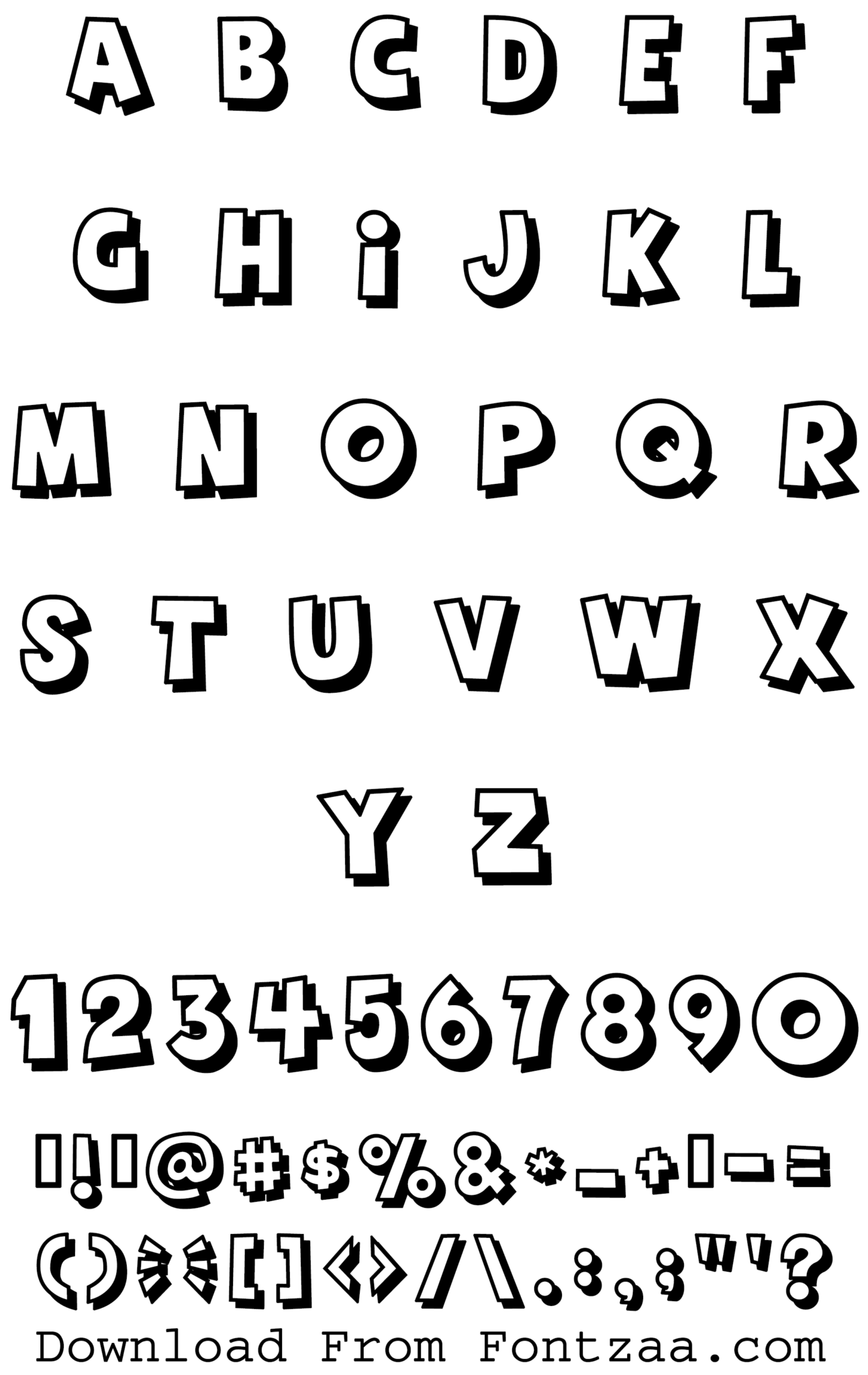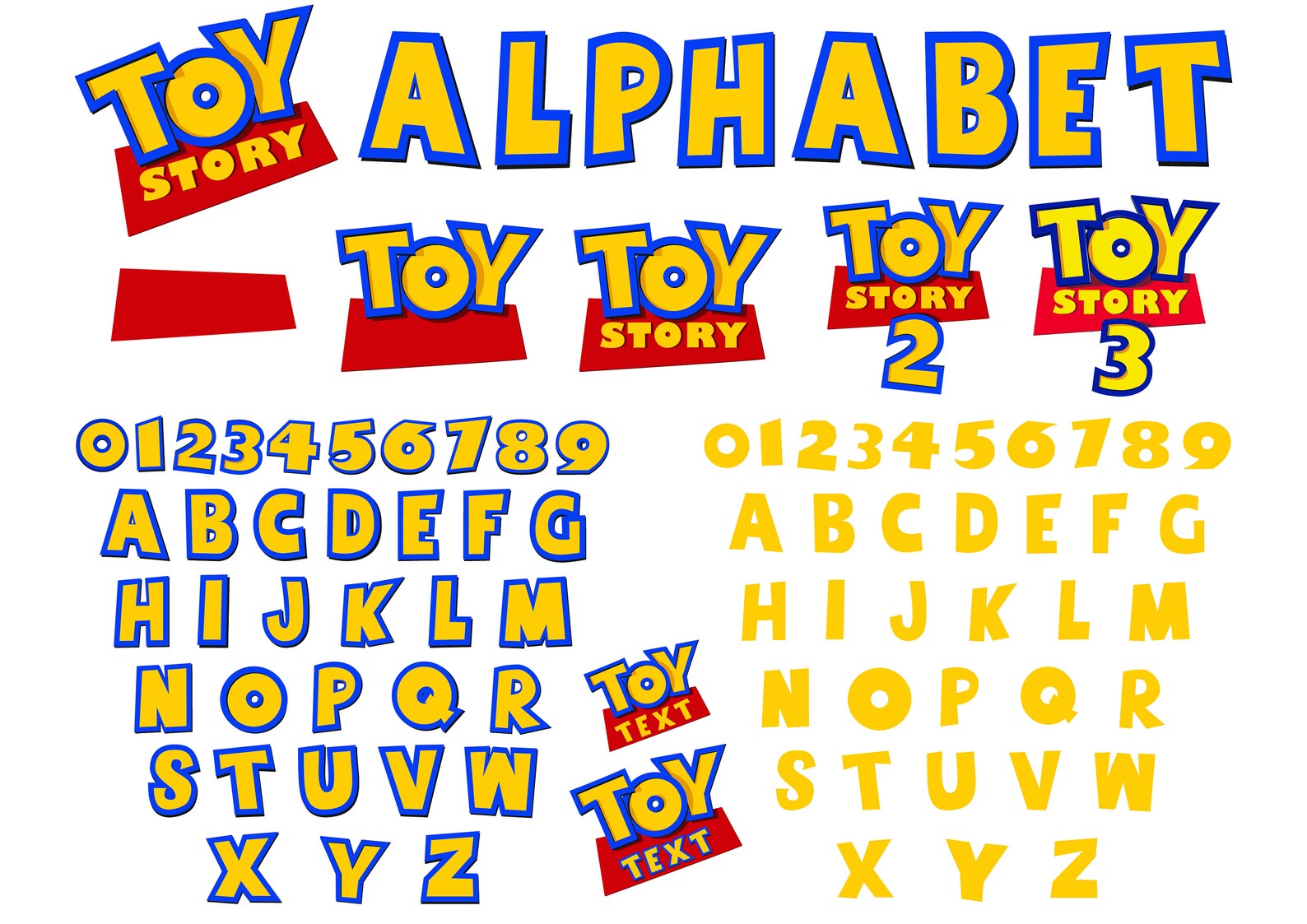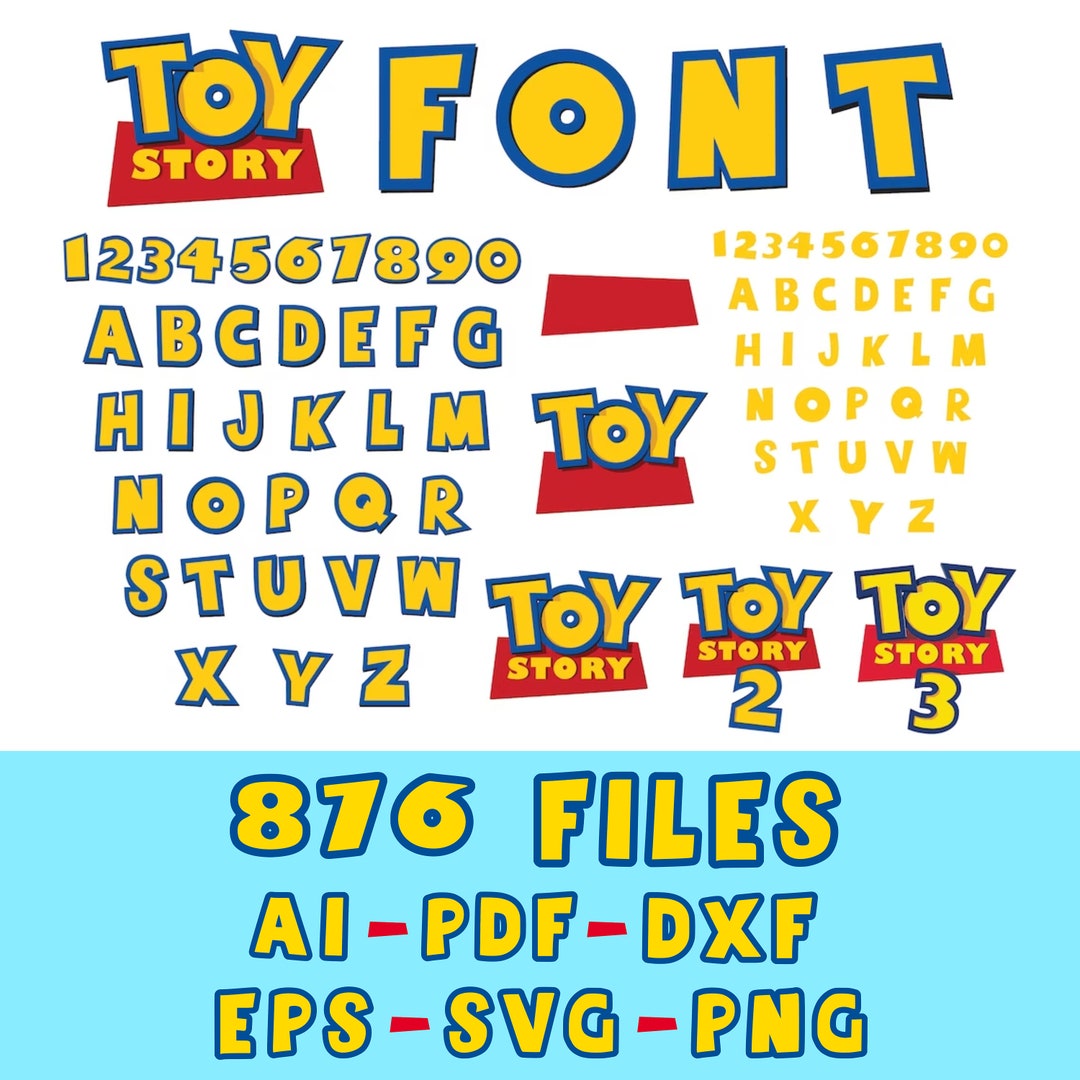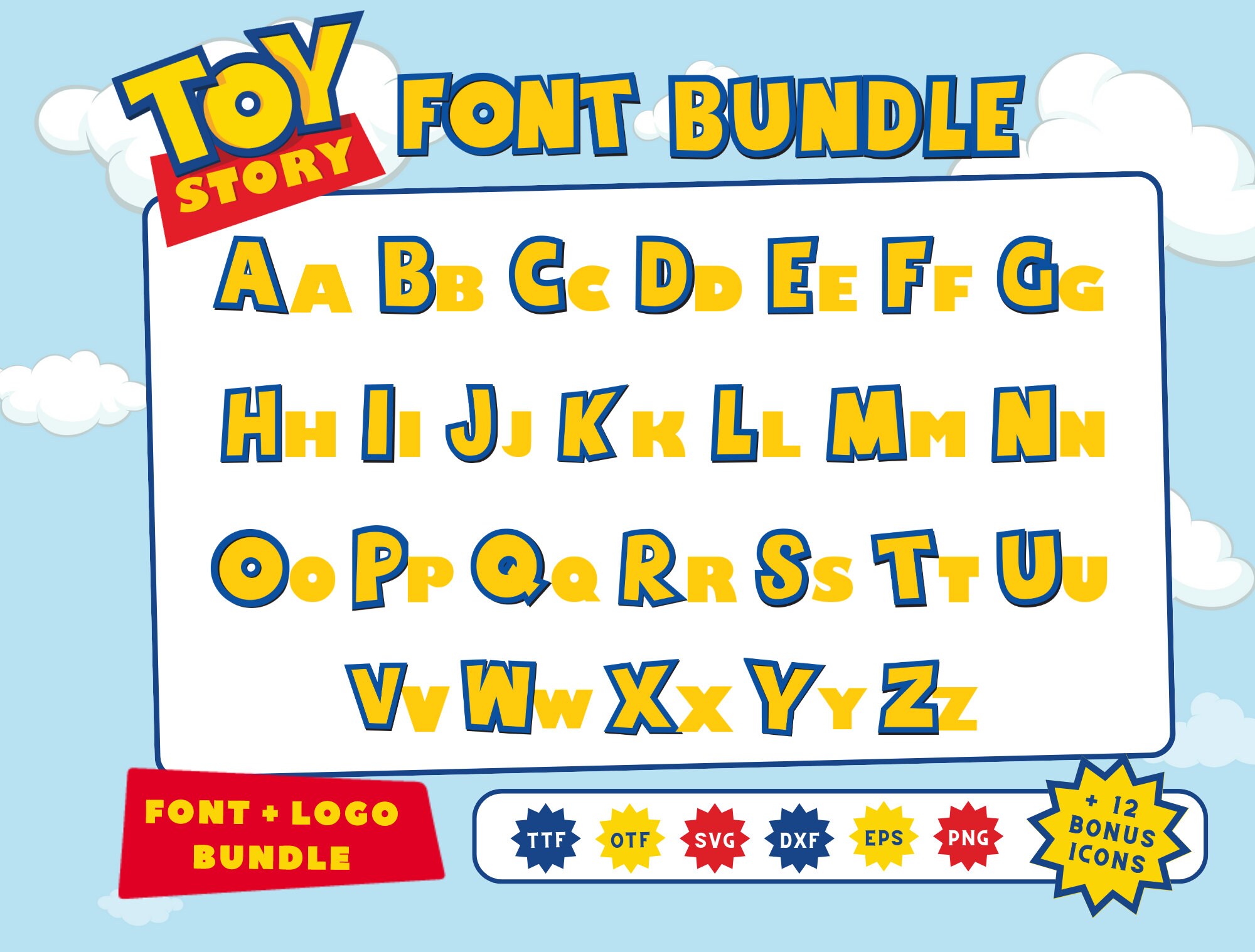
Toy Story Font Photoshop . Toy story font free download. Today we present the toy story typeface from walt disney’s 1995 american adventure film toy story, released november 19, 1995, has become one of the highest grossing films ever in terms of production. We’re here to offer you the classic toy story font free of charge. The “story” part was probably designed using the font gill sans bold, which is a commercial font. Click the button below and get. Click to find the best 2 free fonts in the pixar toy story style. We searched the web and discovered the most closest toy story similar fonts and these fonts are completely free for personal use. Every font is free to download! Today we are here to bestow a movie typeface the toy story font. Characterized with a blue outline and yellow interior this font was used on all 4 toy story movies. Looking for pixar toy story fonts? The toy story logo was designed using two lettering styles. The toy story is an american adventure cartoon comedy film released by walt disney on 19.
Every font is free to download! The “story” part was probably designed using the font gill sans bold, which is a commercial font. The toy story is an american adventure cartoon comedy film released by walt disney on 19. Today we are here to bestow a movie typeface the toy story font. We’re here to offer you the classic toy story font free of charge. Characterized with a blue outline and yellow interior this font was used on all 4 toy story movies. We searched the web and discovered the most closest toy story similar fonts and these fonts are completely free for personal use. Looking for pixar toy story fonts? Click to find the best 2 free fonts in the pixar toy story style. Toy story font free download.
Toy Story Font Photoshop Click to find the best 2 free fonts in the pixar toy story style. The toy story logo was designed using two lettering styles. Click to find the best 2 free fonts in the pixar toy story style. Today we are here to bestow a movie typeface the toy story font. Click the button below and get. The “story” part was probably designed using the font gill sans bold, which is a commercial font. Characterized with a blue outline and yellow interior this font was used on all 4 toy story movies. Looking for pixar toy story fonts? Toy story font free download. We’re here to offer you the classic toy story font free of charge. The toy story is an american adventure cartoon comedy film released by walt disney on 19. Every font is free to download! Today we present the toy story typeface from walt disney’s 1995 american adventure film toy story, released november 19, 1995, has become one of the highest grossing films ever in terms of production. We searched the web and discovered the most closest toy story similar fonts and these fonts are completely free for personal use.
🤠 Toy Story Font Generator 👨🚀 FREE Toy Story Font Photoshop Toy story font free download. Click to find the best 2 free fonts in the pixar toy story style. Looking for pixar toy story fonts? The toy story is an american adventure cartoon comedy film released by walt disney on 19. We searched the web and discovered the most closest toy story similar fonts and these fonts are completely free. Toy Story Font Photoshop.
Toy Story FONT SVG Instant Download Toy Story Alphabet SVG Etsy UK Toy Story Font Photoshop The “story” part was probably designed using the font gill sans bold, which is a commercial font. We’re here to offer you the classic toy story font free of charge. The toy story logo was designed using two lettering styles. Every font is free to download! Click to find the best 2 free fonts in the pixar toy story style.. Toy Story Font Photoshop.
Toy Story Alphabet Svg, Toy Story fonts Svg, Toy Story Svg, Inspire Toy Story Font Photoshop Characterized with a blue outline and yellow interior this font was used on all 4 toy story movies. The toy story is an american adventure cartoon comedy film released by walt disney on 19. We searched the web and discovered the most closest toy story similar fonts and these fonts are completely free for personal use. Every font is free. Toy Story Font Photoshop.
Toy Story Font SVG Cricut Toy Story Font Otf Toy Story Etsy Australia Toy Story Font Photoshop The toy story logo was designed using two lettering styles. The toy story is an american adventure cartoon comedy film released by walt disney on 19. Today we present the toy story typeface from walt disney’s 1995 american adventure film toy story, released november 19, 1995, has become one of the highest grossing films ever in terms of production. Today. Toy Story Font Photoshop.
Toy Story Font SVG Toy Story Alphabet SVG Toy Story Letters Etsy Toy Story Font Photoshop Click the button below and get. Today we are here to bestow a movie typeface the toy story font. Characterized with a blue outline and yellow interior this font was used on all 4 toy story movies. Click to find the best 2 free fonts in the pixar toy story style. Today we present the toy story typeface from walt. Toy Story Font Photoshop.
Free Toy Story Font Ad Get Access To Our Ever Growing Library Of Fonts Toy Story Font Photoshop Characterized with a blue outline and yellow interior this font was used on all 4 toy story movies. We searched the web and discovered the most closest toy story similar fonts and these fonts are completely free for personal use. Click to find the best 2 free fonts in the pixar toy story style. The toy story is an american. Toy Story Font Photoshop.
Abc Font, Lettering Alphabet, Toy Story Font, Toy Story Crafts, Special Toy Story Font Photoshop Every font is free to download! Characterized with a blue outline and yellow interior this font was used on all 4 toy story movies. Toy story font free download. The “story” part was probably designed using the font gill sans bold, which is a commercial font. Today we present the toy story typeface from walt disney’s 1995 american adventure film. Toy Story Font Photoshop.
Toy Story Font Toy Story Alphabet Toy Story Letters Cartoon Etsy Toy Story Font Photoshop Looking for pixar toy story fonts? Click the button below and get. The toy story logo was designed using two lettering styles. Today we are here to bestow a movie typeface the toy story font. Today we present the toy story typeface from walt disney’s 1995 american adventure film toy story, released november 19, 1995, has become one of the. Toy Story Font Photoshop.
Toy Story Font SVG Cricut Toy Story Font Png Toy Story Font Etsy Hong Toy Story Font Photoshop Looking for pixar toy story fonts? Click the button below and get. Today we are here to bestow a movie typeface the toy story font. Every font is free to download! The toy story is an american adventure cartoon comedy film released by walt disney on 19. Characterized with a blue outline and yellow interior this font was used on. Toy Story Font Photoshop.